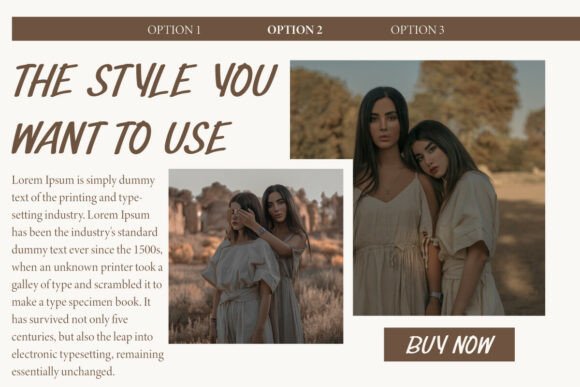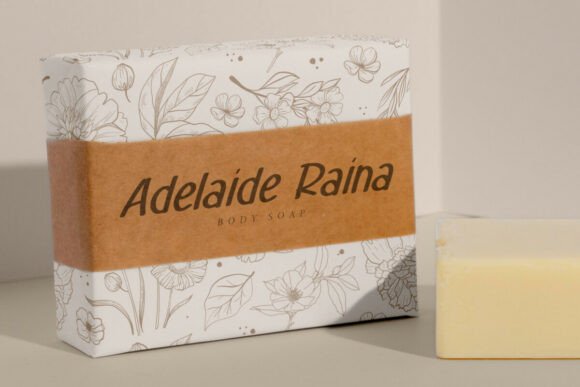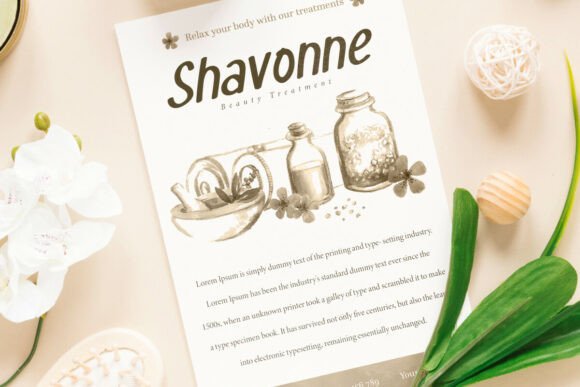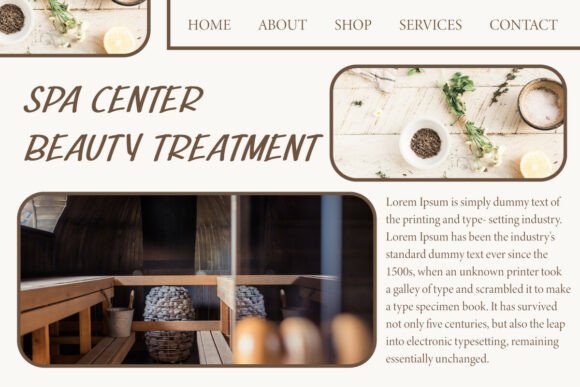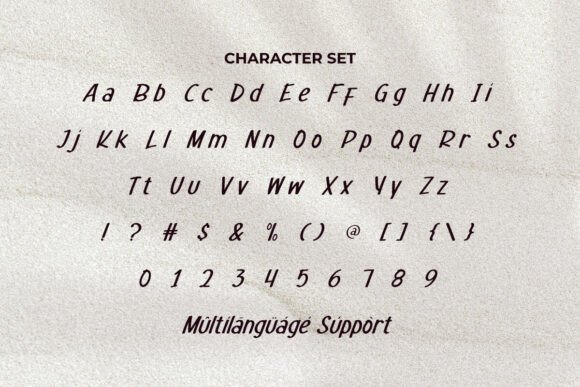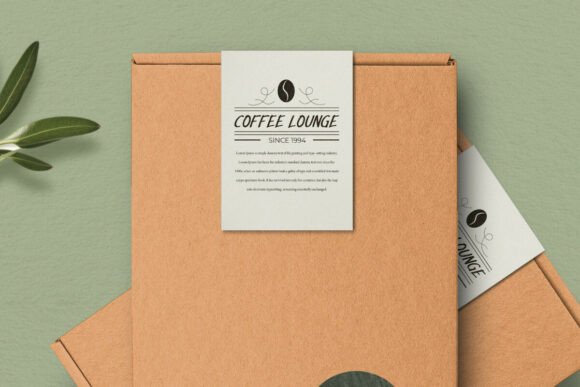
The Elegance of Alex Raymond Font: A Designer’s New Best Friend
I still remember the design project that led me to discover the Alex Raymond Font. I was working on a luxury branding campaign for a high-end fashion client, and I was struggling to find the perfect font that exuded sophistication and elegance. The client wanted a font that was modern, yet authentic; bold, yet refined. After hours of searching, I stumbled upon the Alex Raymond Font, and it was love at first sight. In this article, I’ll share my experience with this beautiful font, its features, and how to make the most of it in your designs.
- ✨ Effortless elegance: The Alex Raymond Font has a sophisticated aesthetic that adds a touch of luxury to any design.
- ✅ Clean structure: The font’s lean, intentional linework delivers a striking, bold impression without being too thick or overpowering.
- 💡 Versatility: The Alex Raymond Font adapts seamlessly across various platforms, from print to digital.
- 🎨 Refined silhouette: The font’s immaculate clarity makes it perfect for high-end catalogs, bespoke wedding invitations, and luxury branding.
While the Alex Raymond Font is an exceptional typeface, there are a few things to keep in mind:
- 🤔 Limited contrast: The font’s lean linework can make it challenging to create contrast in certain design scenarios.
- ⚠️ Overuse: As with any elegant font, it’s easy to overuse the Alex Raymond Font. Make sure to balance it with other design elements.
- Experiment with OpenType features, such as ligatures and stylistic alternates, to add visual interest to your design.
The Alex Raymond Font comes with a range of OpenType features, including ligatures, stylistic alternates, and glyphs. To access these features, follow these steps:
The Alex Raymond Font was designed with the goal of creating a modern, elegant typeface that combines sophistication with authenticity. Inspired by the works of renowned designers like Didot and Bodoni, the Alex Raymond Font is perfect for designers seeking a versatile and professional finish.
| Font Name | Alex Raymond Font |
| Author | NoahType |
| What is the Alex Raymond Font best suited for? | The Alex Raymond Font is perfect for luxury branding, high-end catalogs, bespoke wedding invitations, and any design project that requires a sophisticated, elegant aesthetic. |
| Is the Alex Raymond Font suitable for body text? | While the Alex Raymond Font is primarily designed for display purposes, it can be used for body text in certain design scenarios. However, it’s recommended to use a font with more contrast and clearer readability for longer blocks of text. |